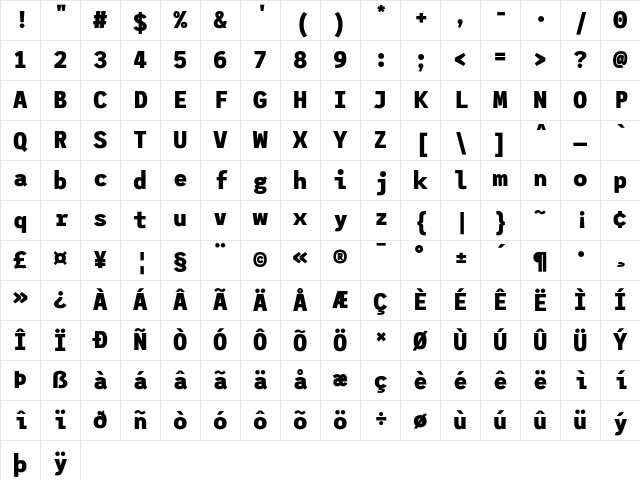
Complete League Mono ExtraBold glyph index. Displaying only characters natively supported by League Mono ExtraBold font.
League Mono uses fixed-width spacing throughout, giving it the structured, systematic character associated with coding environments and technical documentation. Its bold stroke weight gives it real presence on the page.
Pro Tip: Use League Mono with slightly increased line-height for extended reading - fixed-width spacing can feel dense in longer passages without extra breathing room.